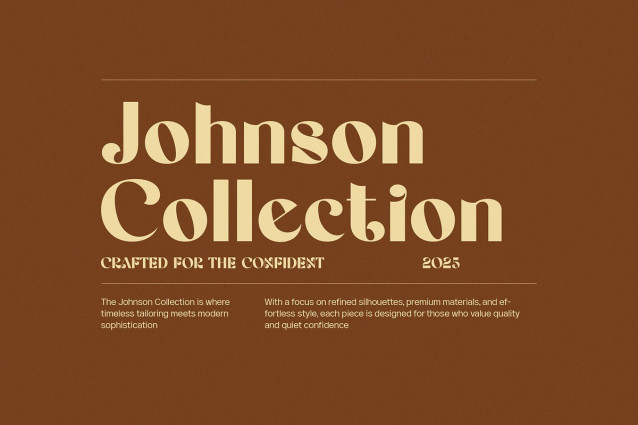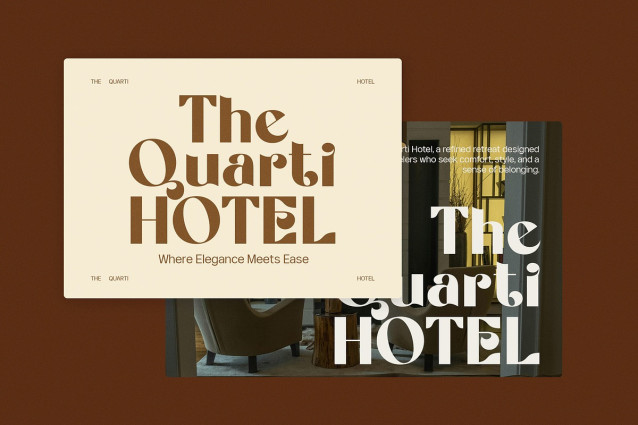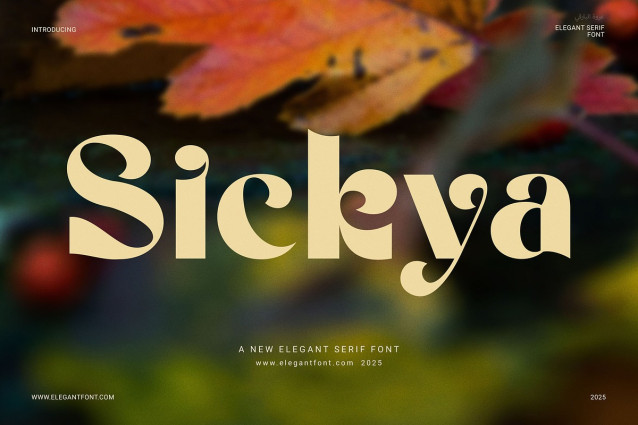
Sickya Font
Sickya Font is a striking serif display typeface designed for creative professionals who want strong visual impact. With bold strokes, sharp serifs, and clean edges, it brings character and clarity. Whether you work on branding, titles, or packaging, this font helps you shine.